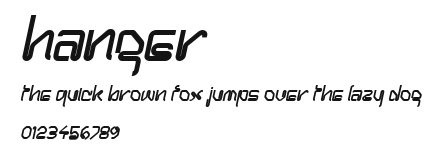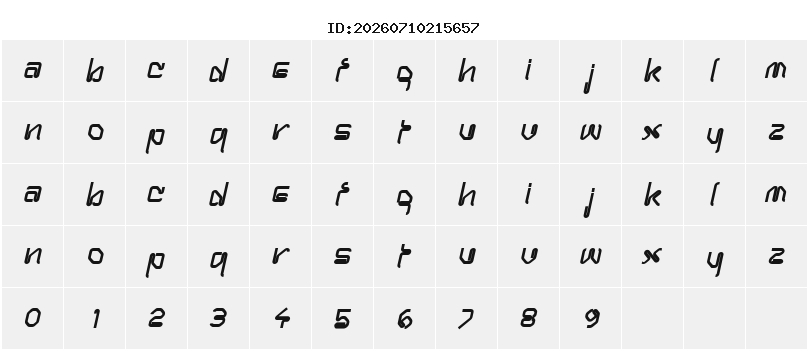
Hanger Preview
• Font Name: Hanger
• Font ID: FontMonger:Hanger Bold Italic
• Full Font Name: Hanger Bold Italic
• Version: 1.0 Tue Jul 27 02:56:39 1993
• PostScript Name: HangerBold
• Character Count: 302
About Hanger.ttf
Hanger.ttf is a modern, elegant sans-serif font designed for ultimate readability and visual harmony. Perfect for branding, headlines, web design, and print materials.